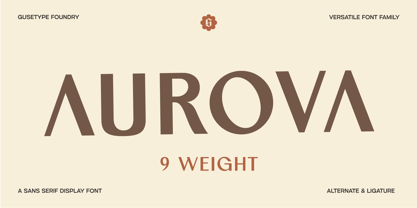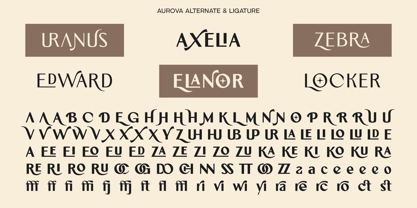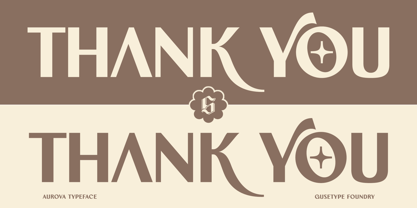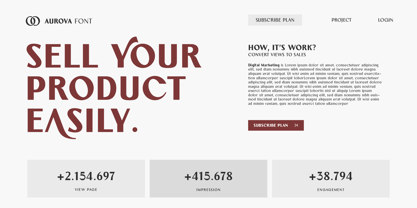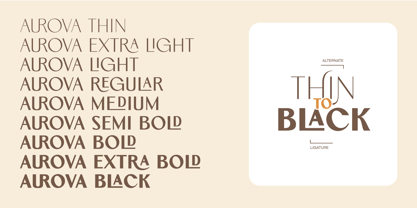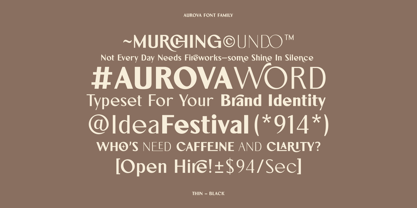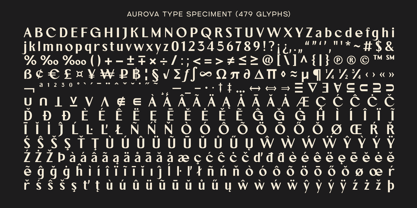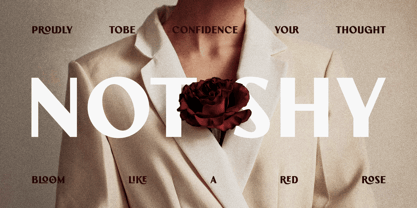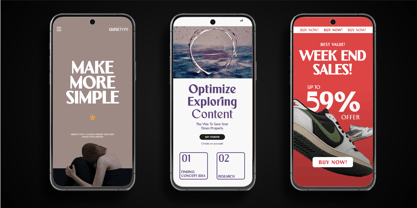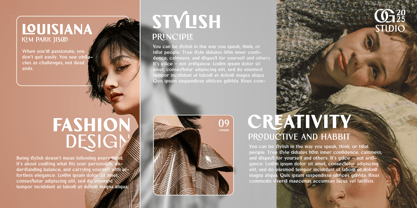
Aurova
by GuseType
The Aurova Font Family was designed by Guntur Septyan and published by GuseType. Aurova contains 9 styles and family package options.
Aurova Font is a sans serif font family display font with elegant touch on it, that blends timeless sophistication with modern clarity. It delivers a professional and versatile look suitable for a wide range of design purposes. Featuring 9 styles, from Thin to Black, Aurova font offers full typographic flexibility, ideal for both body text and bold headlines. This typeface features, such as alternates & Ligatures for creative expression and unique typographic variation. Multilingual Support, covering extended Latin characters for global usability. Aurova suitable for editorial design, branding, visual identity, packaging, and digital interfaces that demand a sophisticated aesthetic. Highlight Aurova font features, such as: * 9 Weights (Thin to Black) * Standard Glyph * Stylistic Alternates & Ligatures * Symbol & Punctuation * Multiple Languages Supported